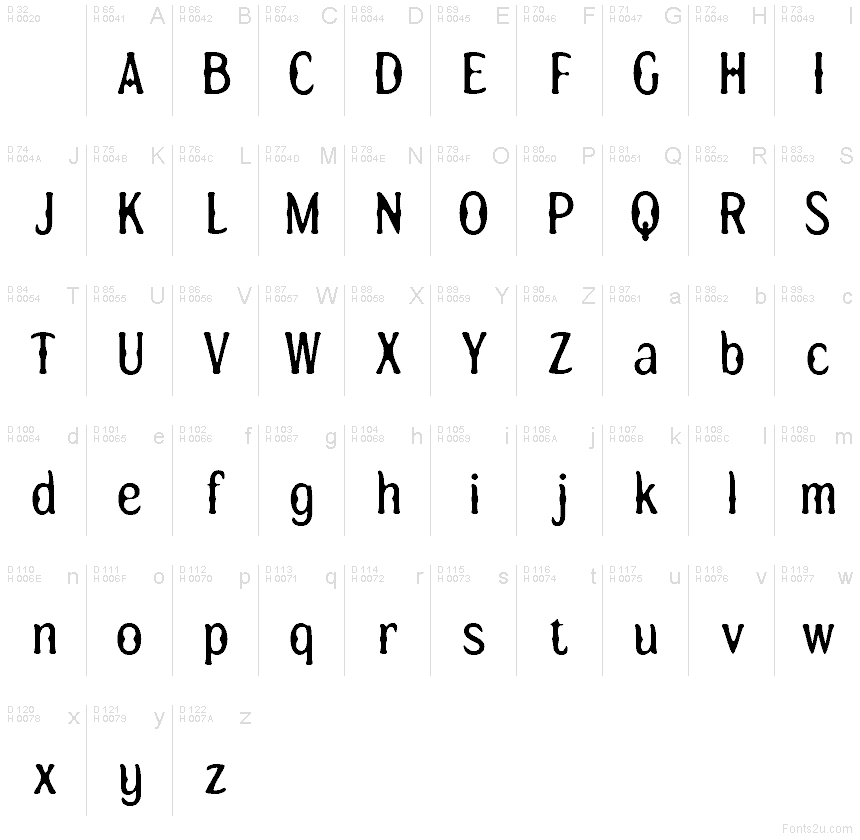
CSBrizoDrawn-Regular Demo
CS Brizo Drawn font is a whimsical touch of flared serifs by Craft Supply Co. Combined with its slightly irregular shapes, the drawn and outlined display writing gives an artistic flair. Because it has been designed with organic feel inspiration, there is no doubt that this beauty will make a difference in your design results.